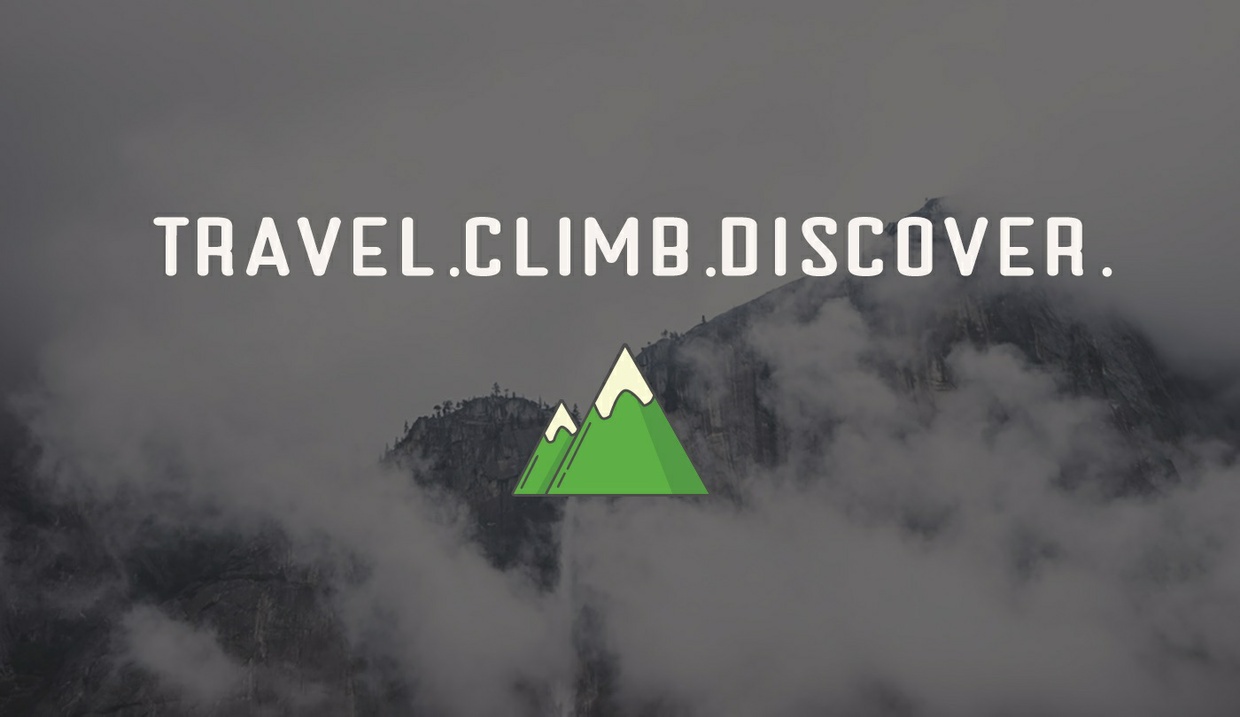
Camp Typeface
Camp typeface designed by ryananthony, and inspired by outdoors.It
Camp typeface than 300 characters, is a sans-serif font, designed smooth, rounded corners, creating a soft feel. you can use it for multiple tasks.